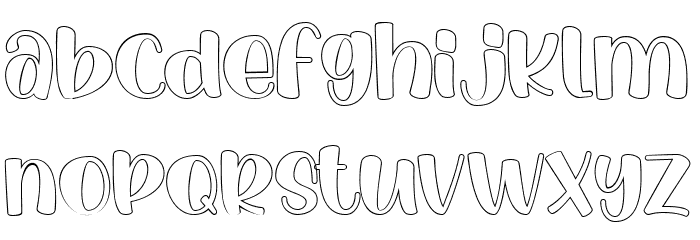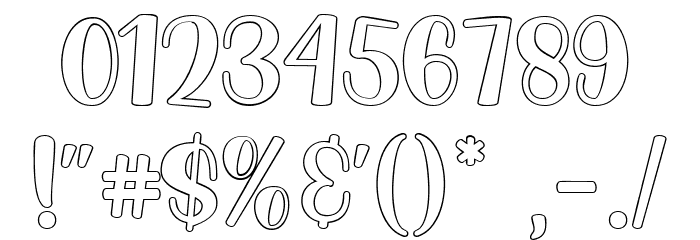
Luar Galaxy Outline Font
This playful and modern font features an outline style that gives it a unique and airy appearance. The characters are rounded and bold, with a consistent thickness throughout each letterform. The uppercase and lowercase letters maintain a uniform height, creating a cohesive look. The numerals are equally bold and rounded, matching the style of the alphabet. Special characters are included, adding versatility to the font. The overall design is friendly and approachable, making it suitable for a variety of creative projects.
A playful, modern outline font with rounded, bold characters.
- Font: Luar Galaxy Outline
- Proposed Projects: Ideal for children's books, playful branding, posters, and creative digital content.